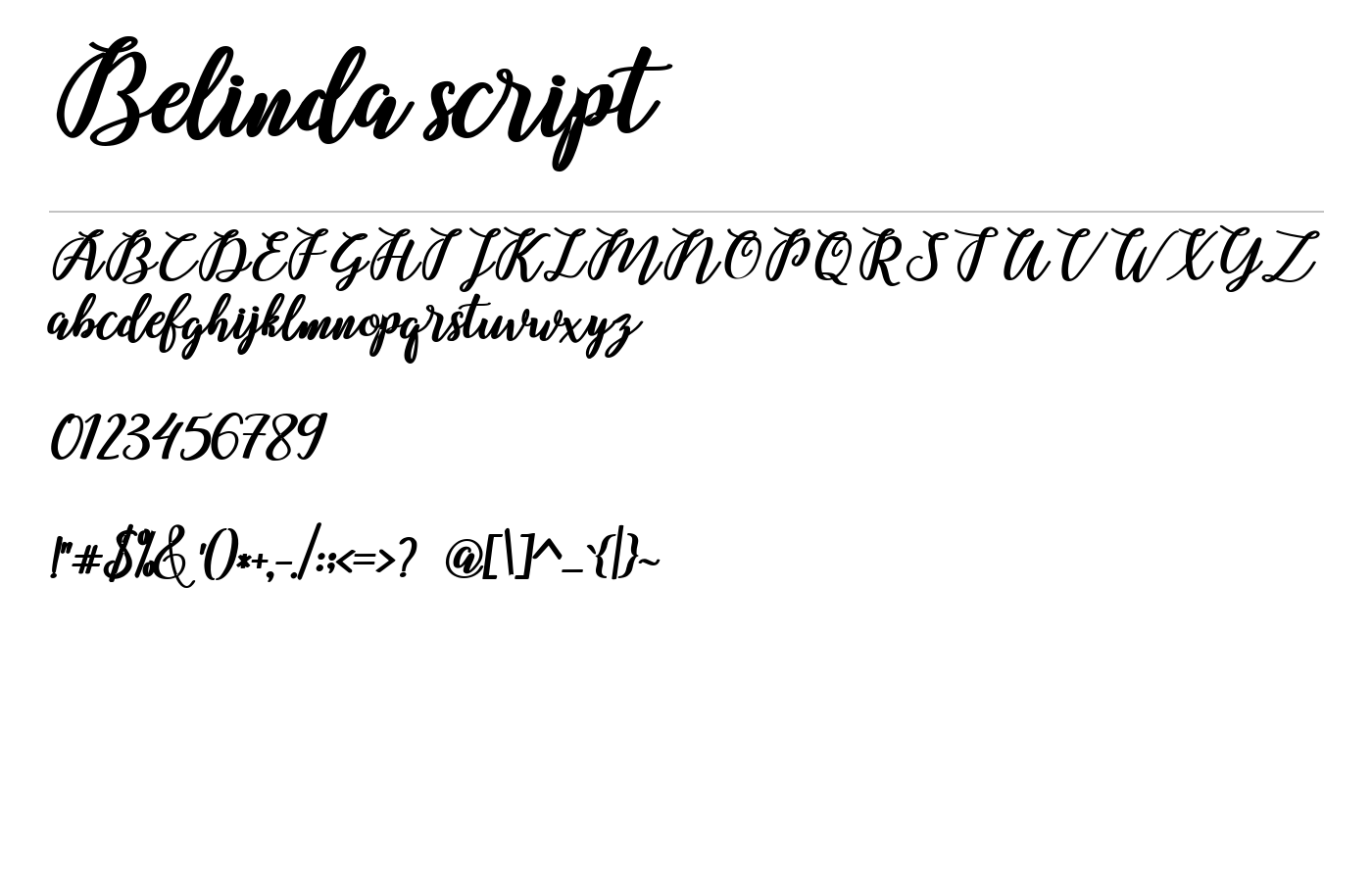
Belinda Script is a stylish and elegant script font with smooth, flowing strokes that combine both calligraphic finesse and modern charm. Its medium weight and balanced height give it a friendly yet sophisticated feel, making it ideal for branding, invitations, and creative projects that seek a personal, graceful touch. This font works particularly well in headlines or display text where its decorative style can truly shine.
Belinda script Font
About Belinda script Font